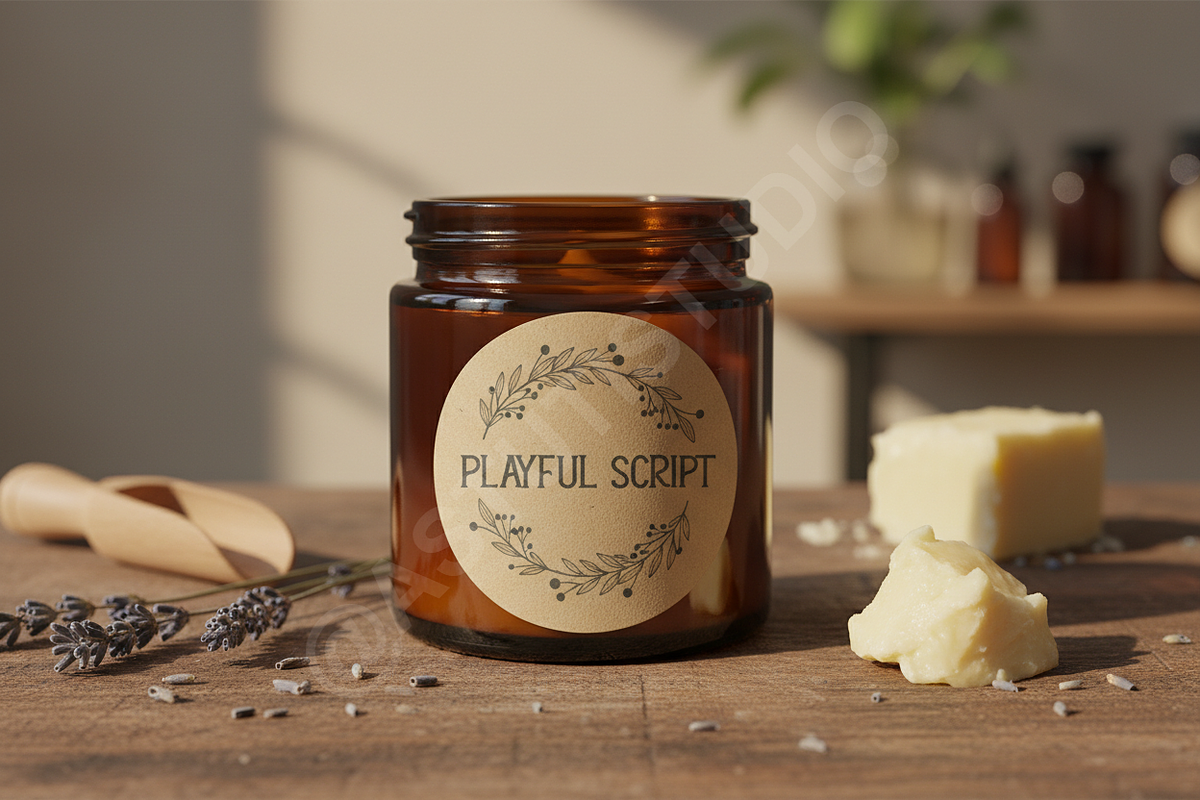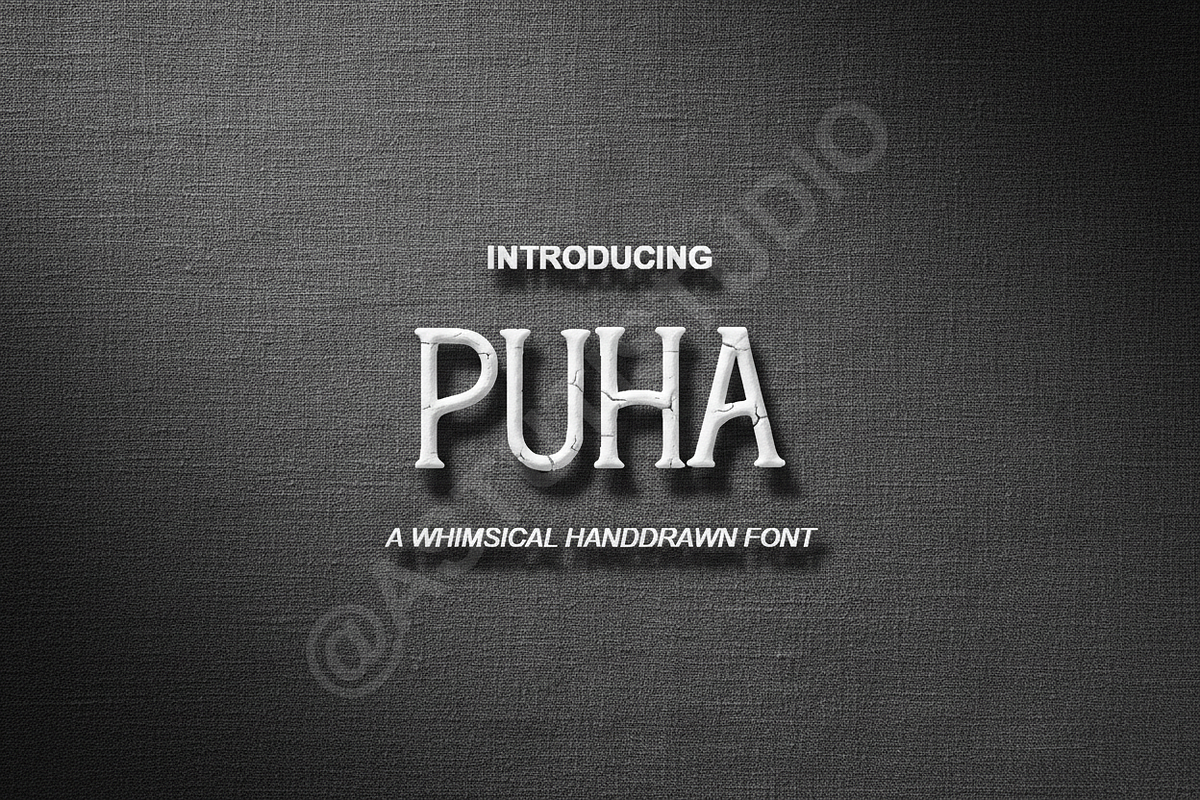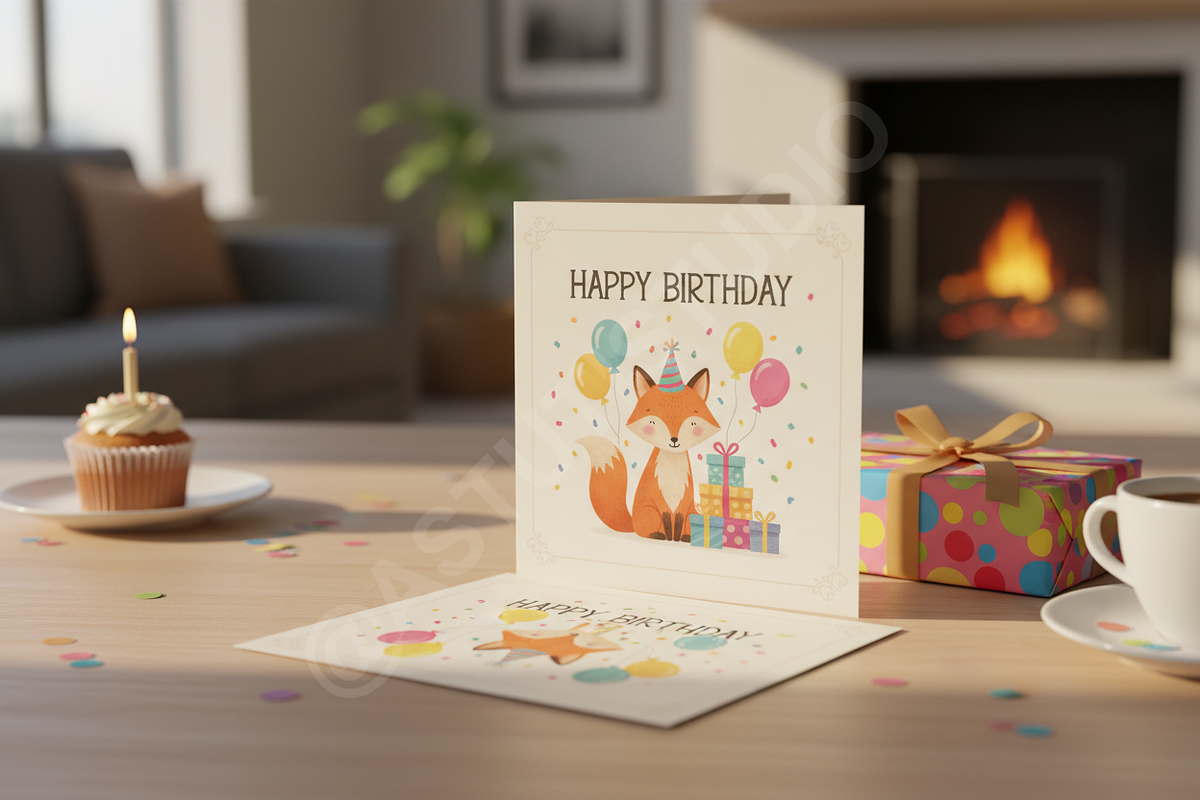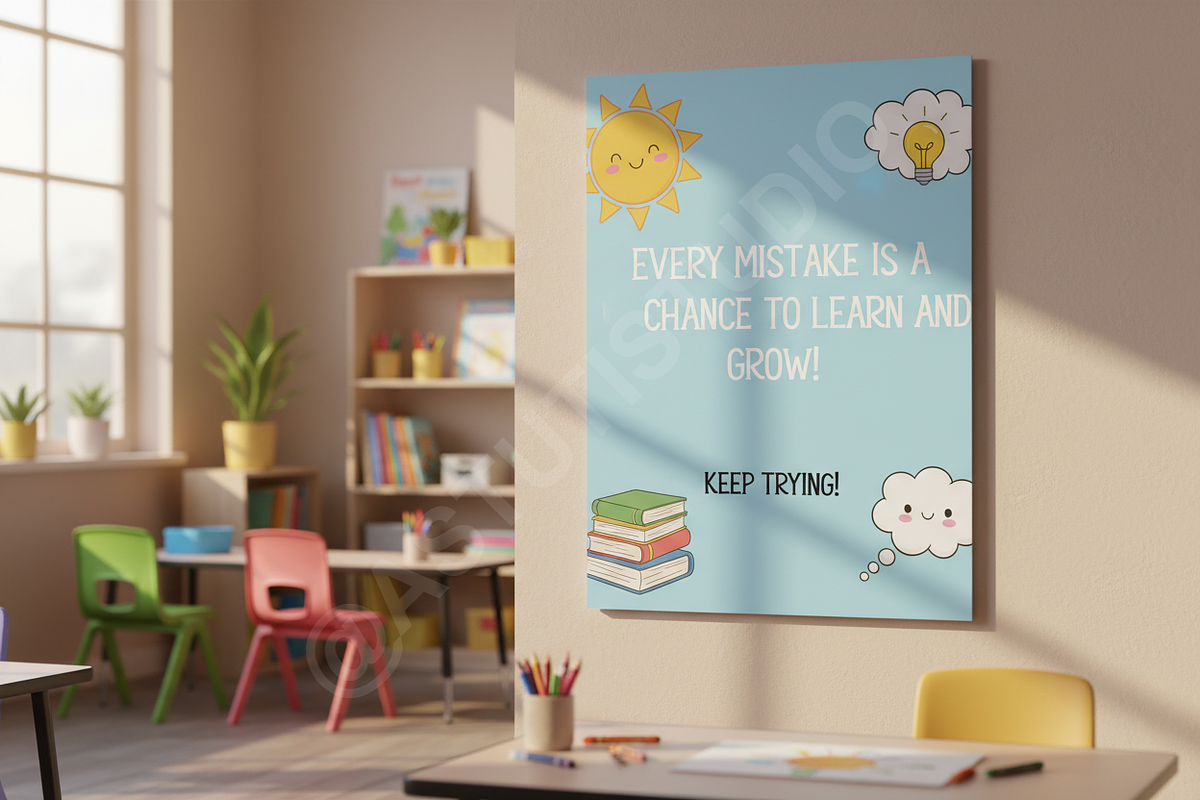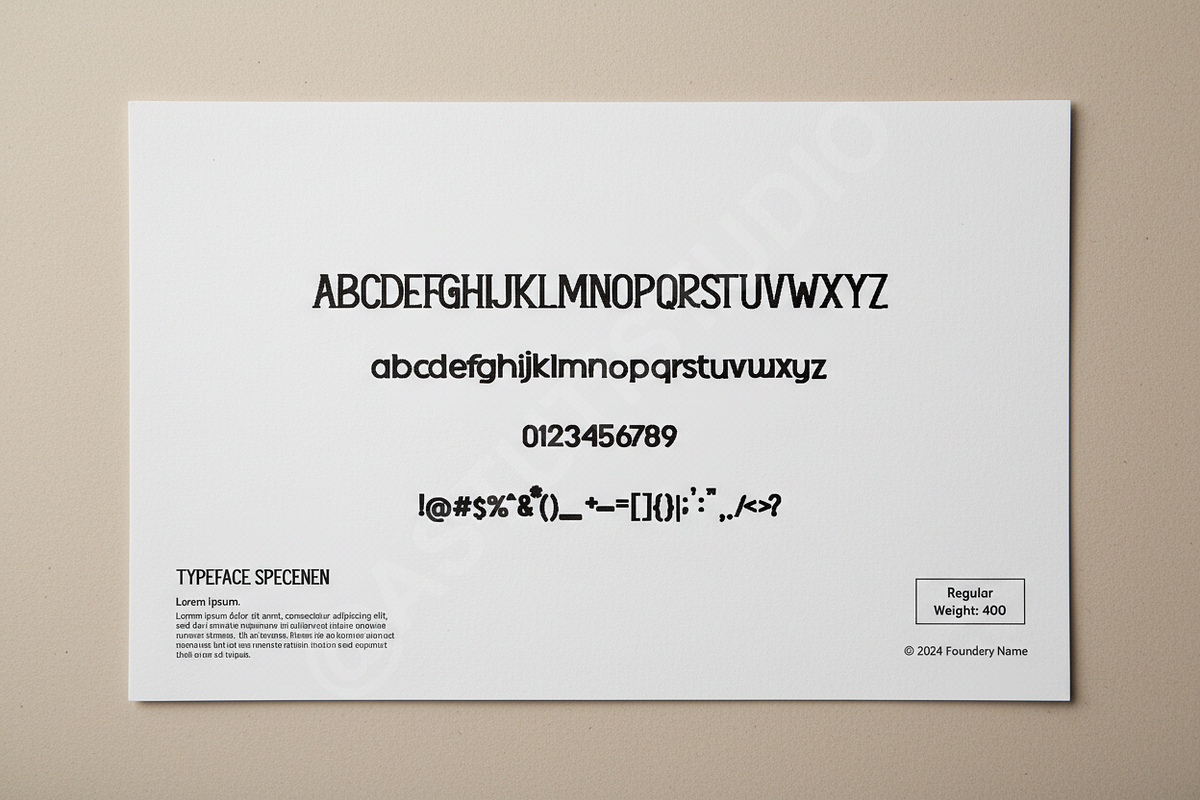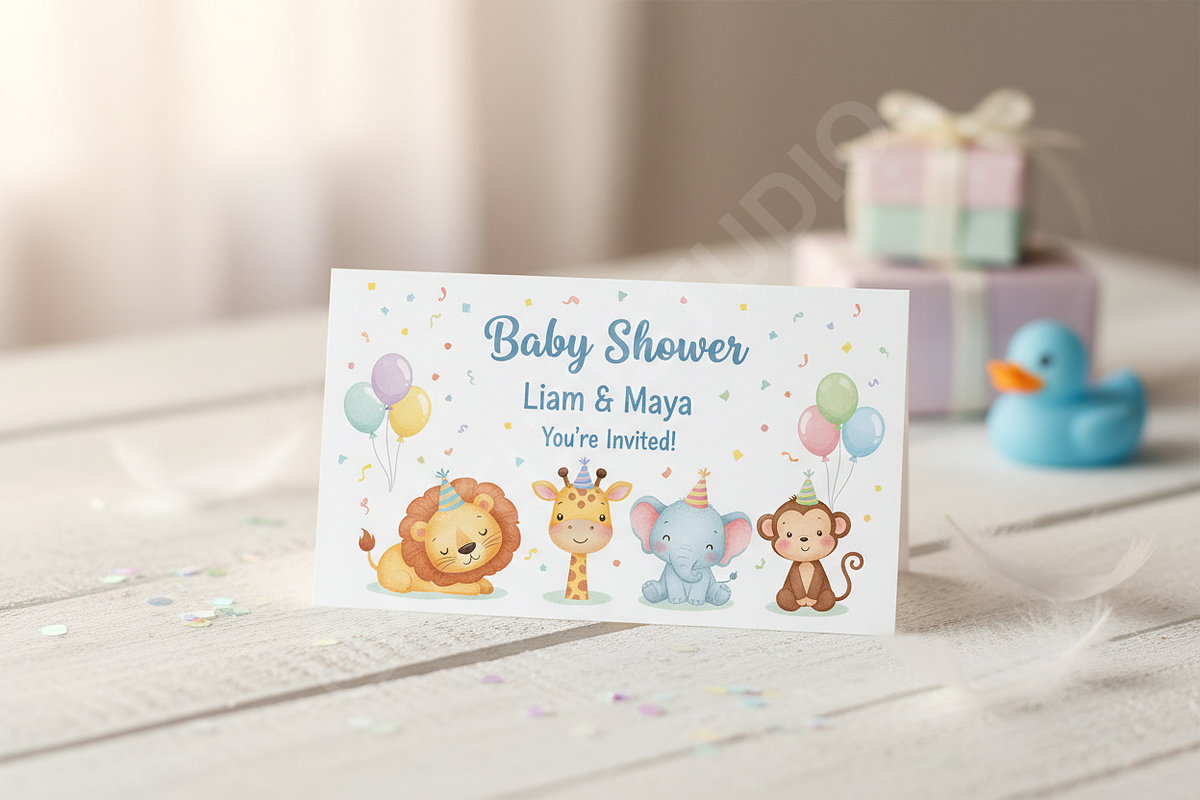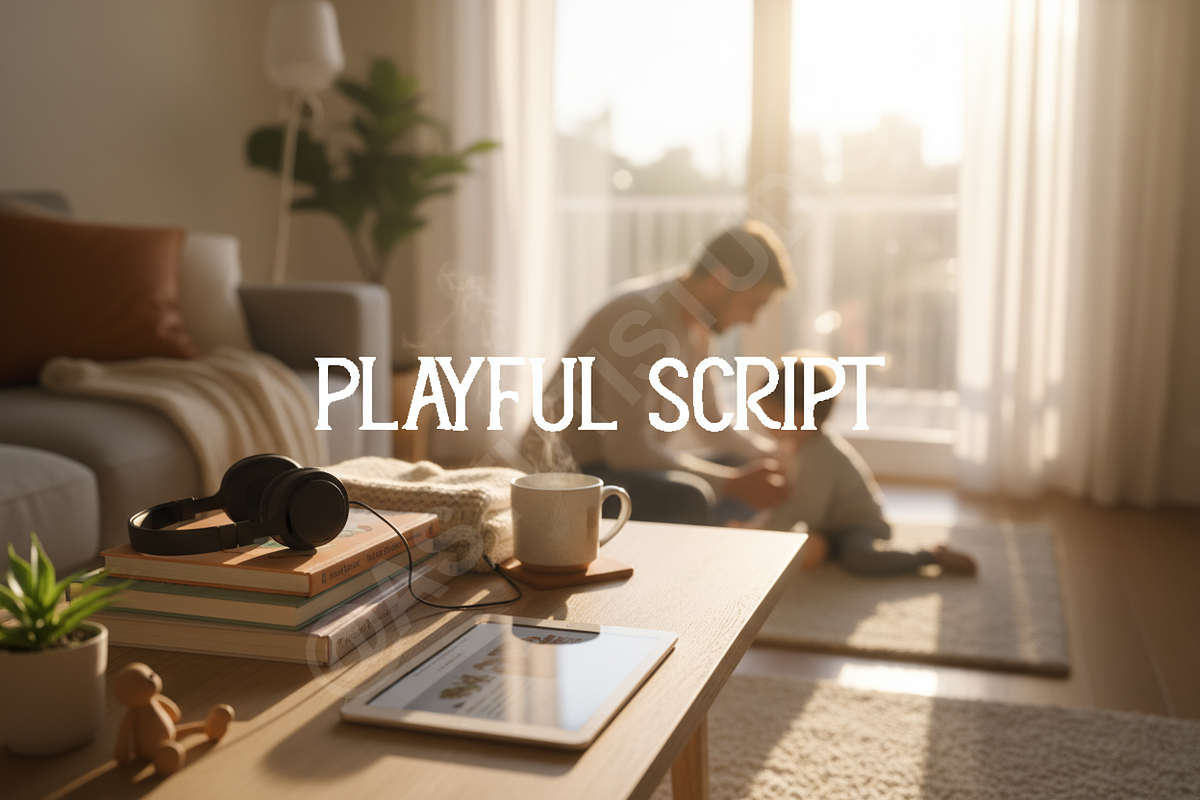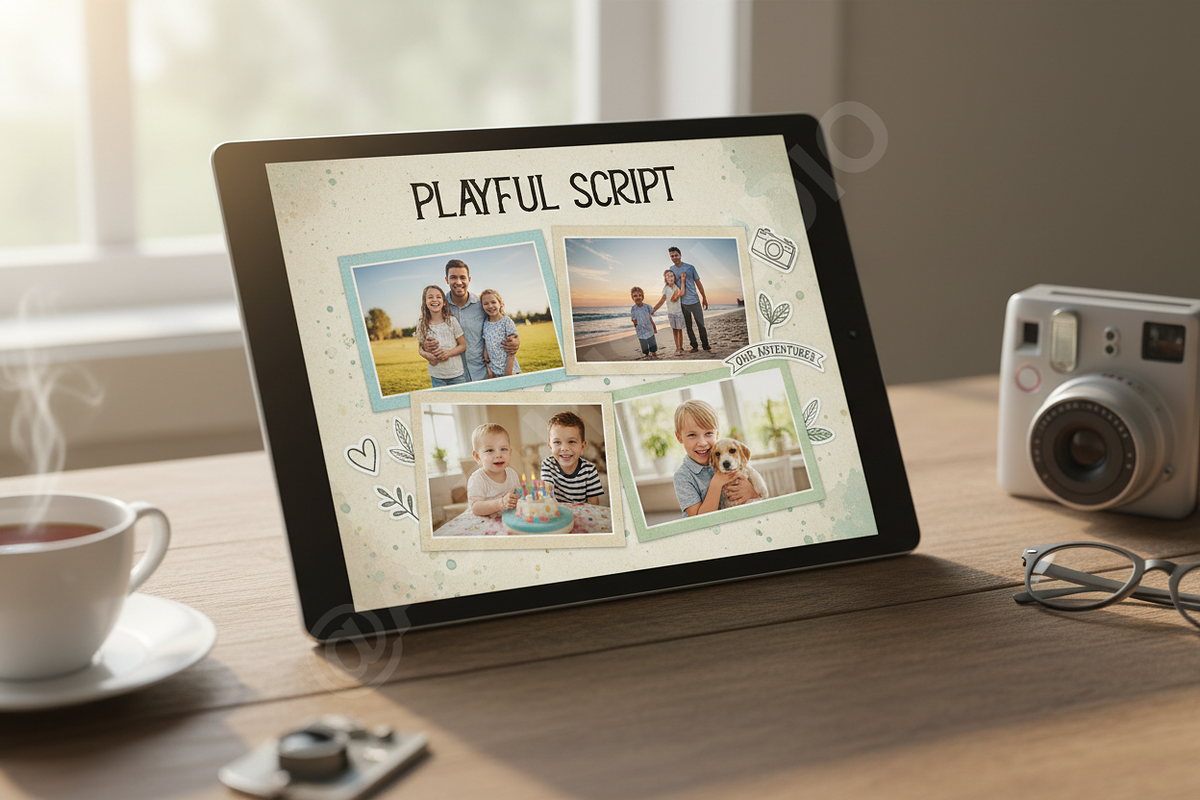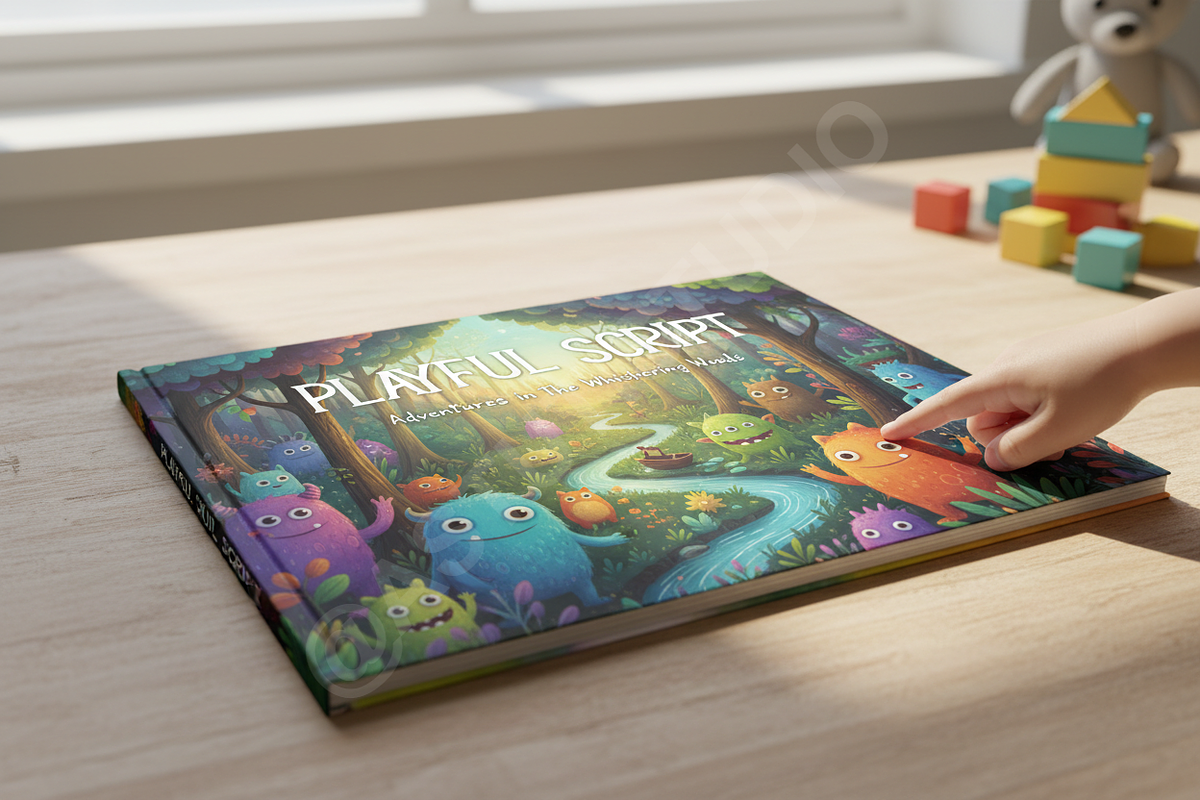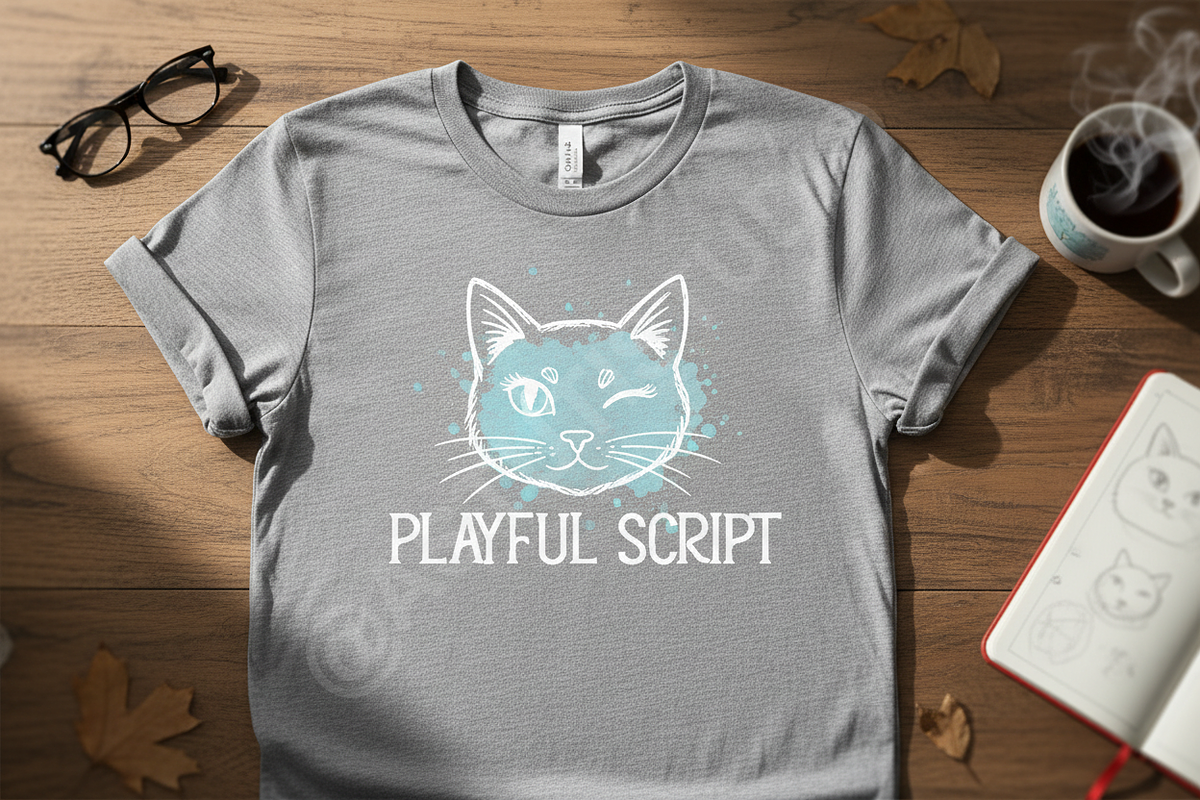
Puha | Modern Elegant Serif Typefac
Elevate your visual identity with Puha, a sophisticated serif typeface designed for the discerning creator. Puha balances contemporary flair with timeless elegance, featuring refined high-contrast strokes and perfectly weighted proportions. This typeface is purposefully crafted for luxury branding, high-end editorial design, and premium social media aesthetics where a touch of class is essential.
Puha works seamlessly across a variety of mediums, from minimalist logo designs to expansive magazine spreads. Its clean lines and graceful curves offer a professional finish that resonates with high-fashion and boutique industries, ensuring your message is delivered with poise and clarity.
- Elegant high-contrast serif characters
- Sophisticated ligatures and stylistic alternates
- Extensive multilingual support for global reach
- Optimized kerning for professional layouts
- Crisp rendering for both digital and print environments
- Full uppercase and lowercase character sets
- Comprehensive numerals and punctuation
- Standard and discretionary ligatures